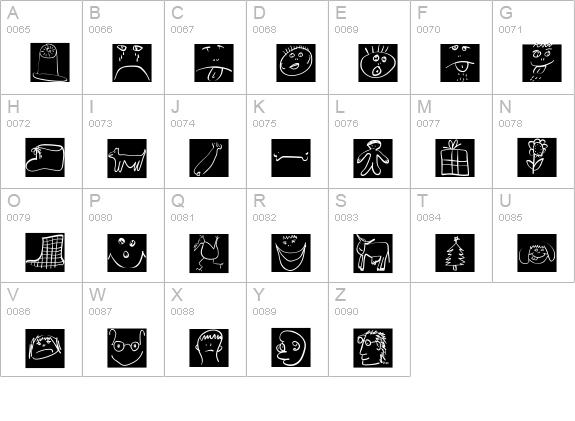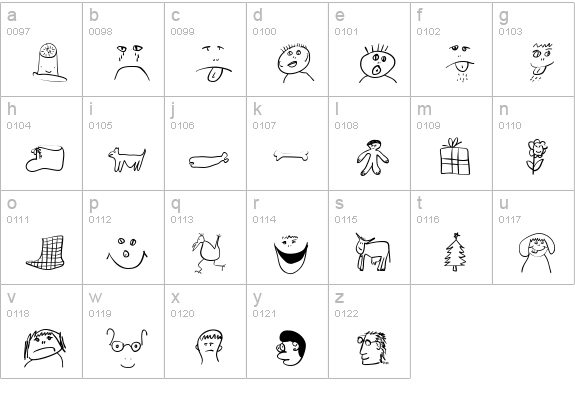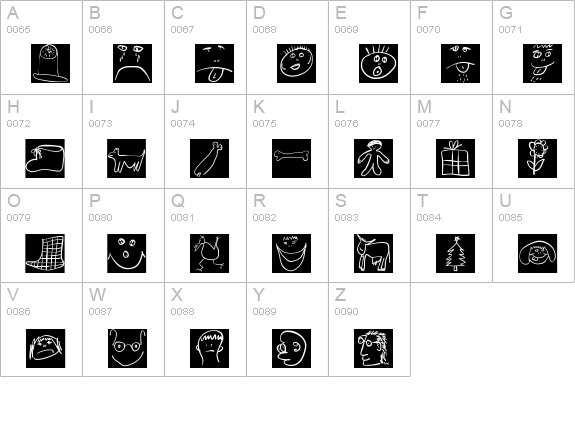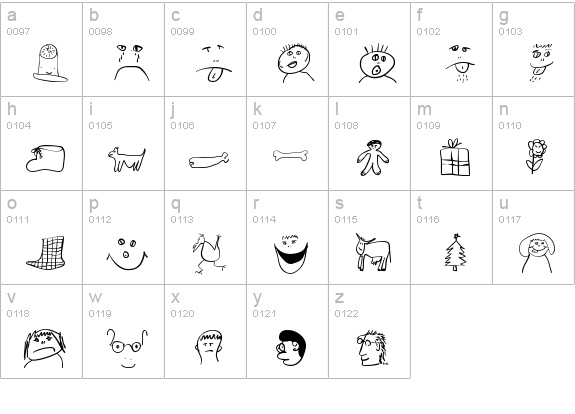
ChildrenDingbats font is a delightful and playful typeface perfect for adding a touch of whimsy to your designs. This font features a charming collection of child-like illustrations and symbols, making it ideal for children's projects, greeting cards, invitations, and more. From cute animals to fun shapes, ChildrenDingbats font offers a wide variety of characters to enhance your creative projects. Best of all, ChildrenDingbats font is completely free to download at FontsMarket.com. Simply visit the website to access this adorable font and start incorporating its cheerful elements into your designs today. Let your imagination run wild with ChildrenDingbats font and bring a smile to everyone who sees your creations.